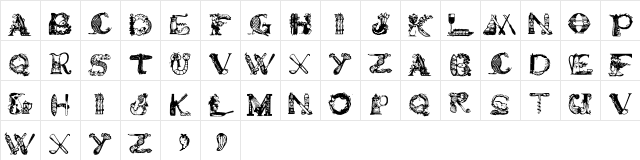
Gourmet Display
Gourmet is built around its visual character rather than neutral utility — its distinctive forms are designed to make an impression at display sizes.
Font Pairing: Pair with a clean neutral sans-serif for body copy to let Gourmet's character lead without overwhelming the composition.
Pro Tip: Treat Gourmet as the centrepiece of your typographic hierarchy. One strong heading set in a decorative face can carry an entire layout.